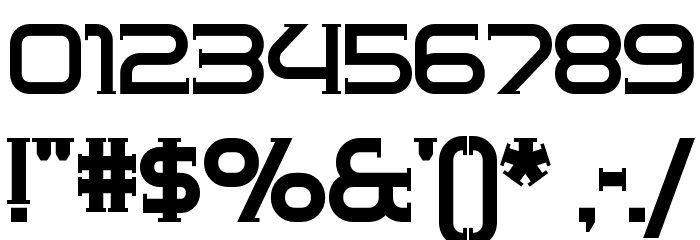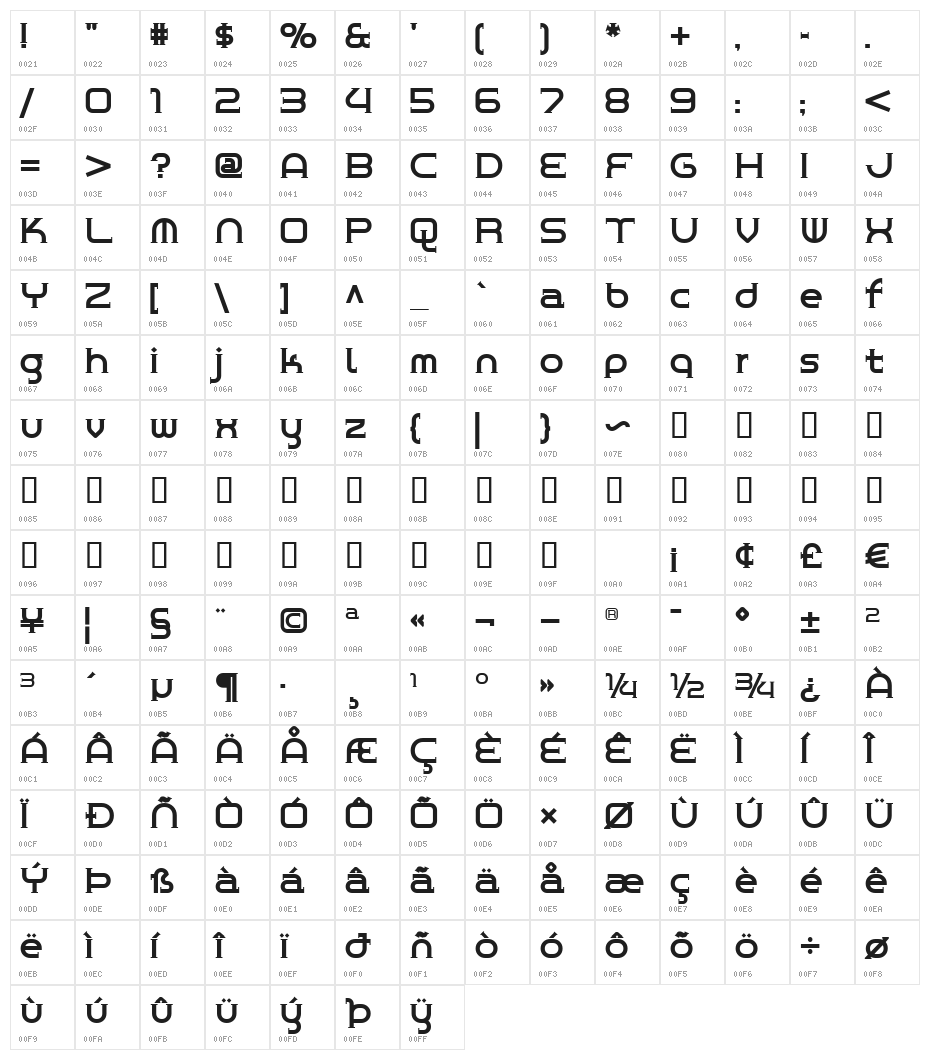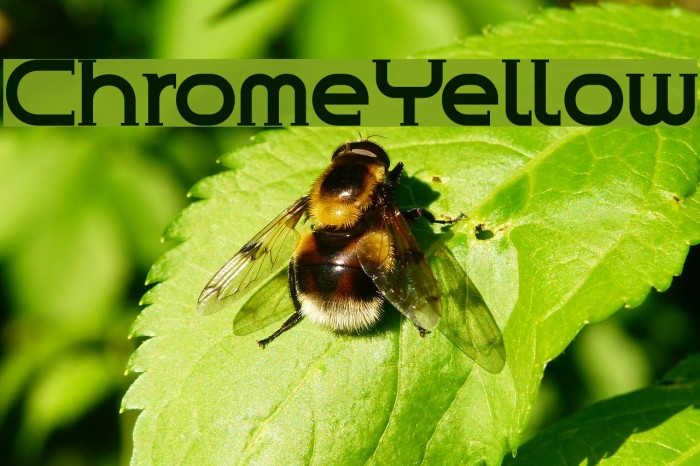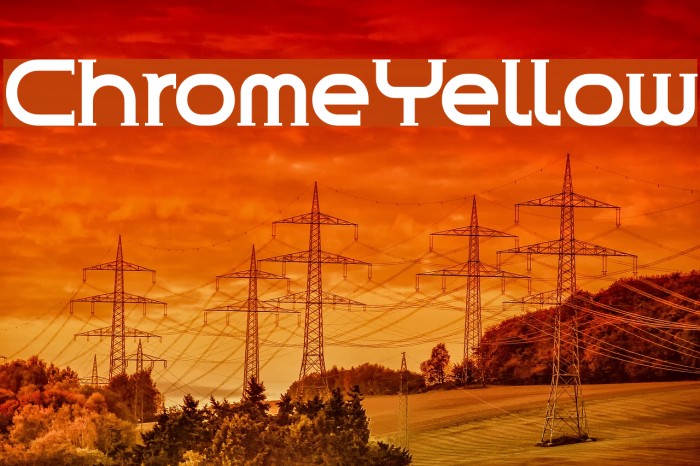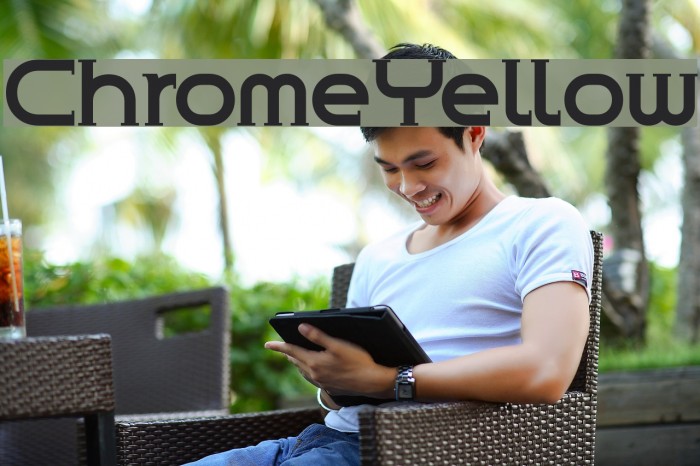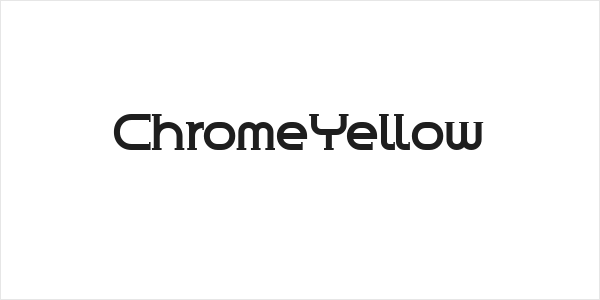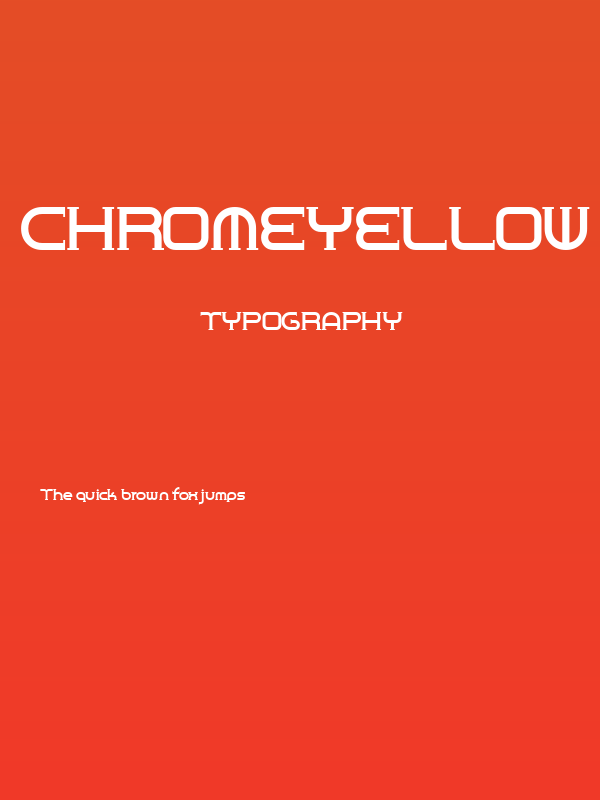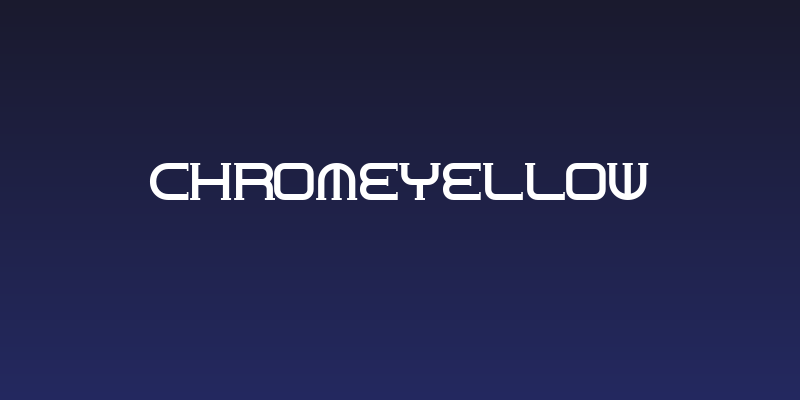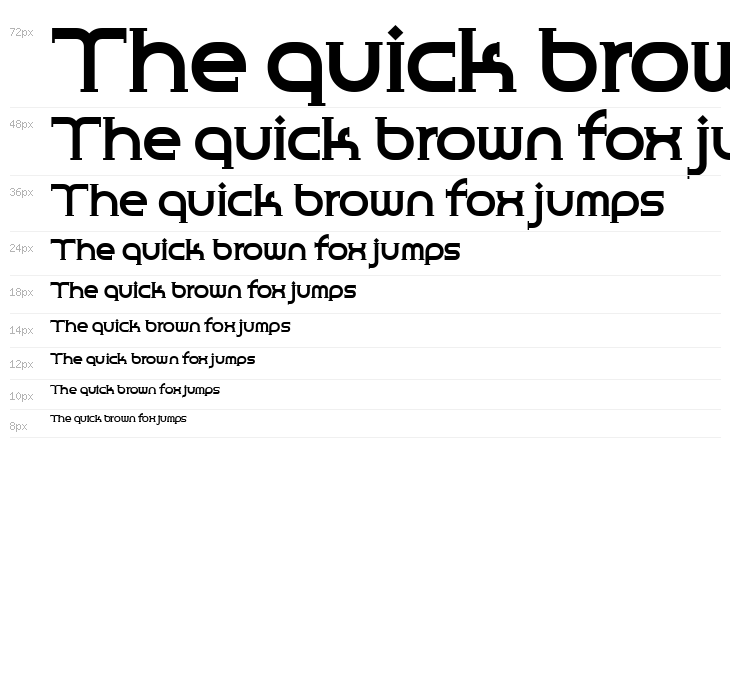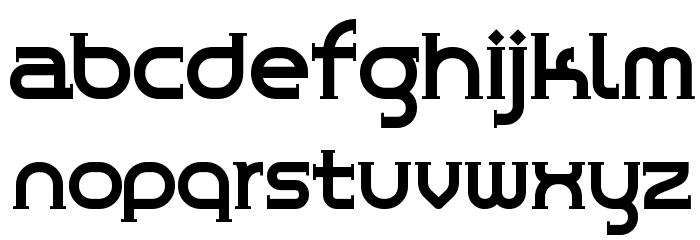
ChromeYellow Font
ChromeYellow Description
This font features a bold and modern design with a distinctive geometric style. The characters are constructed with clean, straight lines and sharp angles, giving it a futuristic and technical appearance. The uppercase letters are particularly striking, with unique cutouts and curves that add a sense of dynamism and movement. The lowercase letters maintain a consistent style, complementing the uppercase with their rounded forms and balanced proportions. The numerals are equally bold, ensuring readability and consistency across different uses. Special characters are designed to match the overall aesthetic, making this font versatile for various applications.